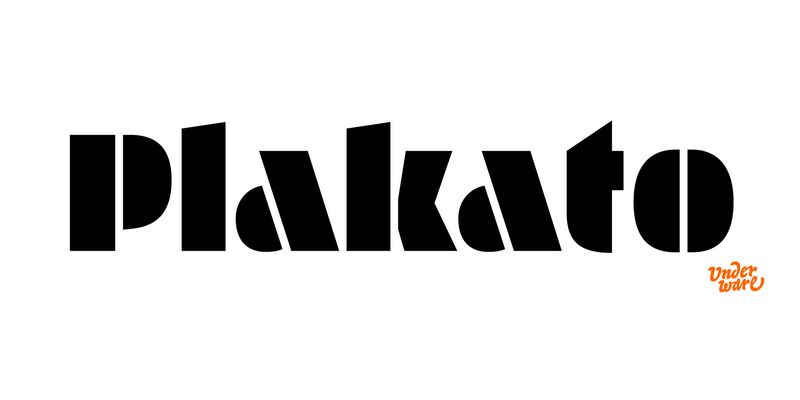
Plakato Font Free Download is a bold, eye-catching display typeface designed for maximum impact. With its heavy letterforms, condensed structure, and strong geometric shapes, this font is perfect for posters, headlines, logos, political messaging, protest art, and branding that needs to be seen loud and clear.
Plakato Font Free Download takes inspiration from early 20th-century propaganda and poster typography—giving it a retro yet timeless feel. Its no-nonsense design makes it ideal for grabbing attention in print or digital media. Whether you’re creating a bold editorial layout, a music event flyer, or a brand with a strong voice, Plakato delivers with power and style.
It pairs well with lighter sans-serifs or contrasting scripts for high-drama typographic compositions.